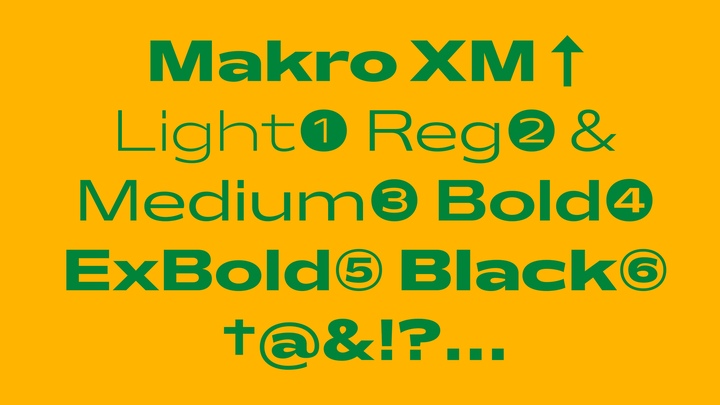
Makro XM Font
Makro XM Font is perfect for tech startup branding, software interface design, digital dashboard displays, gaming applications, esports team logos, cybersecurity presentations, blockchain project materials, artificial intelligence documentation, virtual reality interfaces, and futuristic product packaging. This cutting-edge typeface excels in applications where technological innovation, digital precision, and forward-thinking design are fundamental requirements.
Makro XM Font is exciting because it embodies the essence of extreme digital evolution through its ultra-modern letterforms and technological precision. Its geometric construction features sharp angles, calculated curves, and systematic proportions that create a sense of algorithmic perfection and computational sophistication. The font's extended character width and optimized spacing deliver exceptional screen readability while maintaining the bold presence necessary for impactful technology branding and digital interface applications.
The Makro XM Font family includes Ultra Light, Light, Regular, Medium, Bold, and Black weights, each optimized for different technological applications and screen environments. The family features specialized character sets including programming symbols, mathematical operators, technical notation, and digital interface elements. Advanced OpenType features provide contextual alternates, stylistic sets, and optimized spacing that enhance performance across various digital platforms and devices.
Professional designers choose Makro XM Font for its exceptional performance in digital environments and technology-focused communications. The font's precise construction eliminates visual noise and enhances comprehension in complex technical interfaces. Its futuristic aesthetic communicates innovation and cutting-edge technology while maintaining the clarity essential for functional digital applications and user experience design.
The revolutionary design of Makro XM Font positions brands at the forefront of technological advancement and digital innovation. Its computational aesthetic appeals to tech-savvy audiences while providing the technical precision required for professional software development and advanced digital design applications.
Accelerate into the digital future with Makro XM Font and discover why leading technology companies and innovative startups rely on this exceptional typeface for their most advanced projects and cutting-edge brand communications.